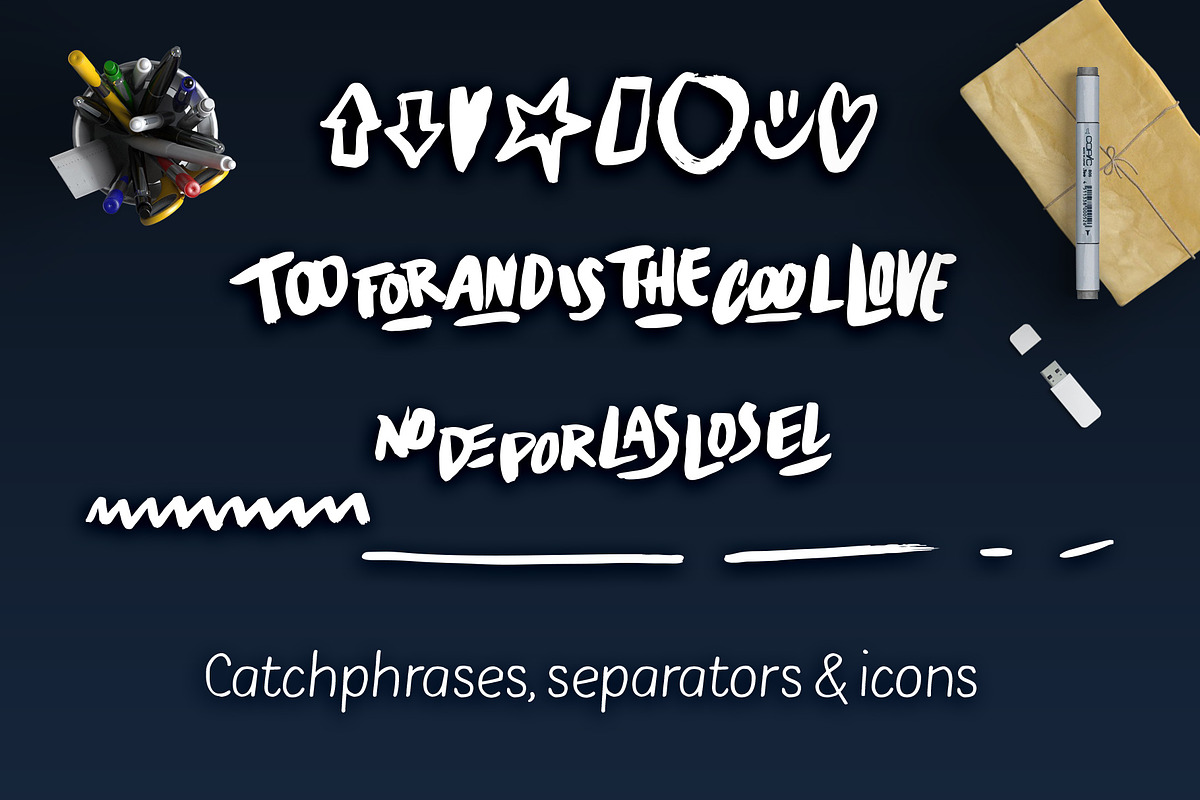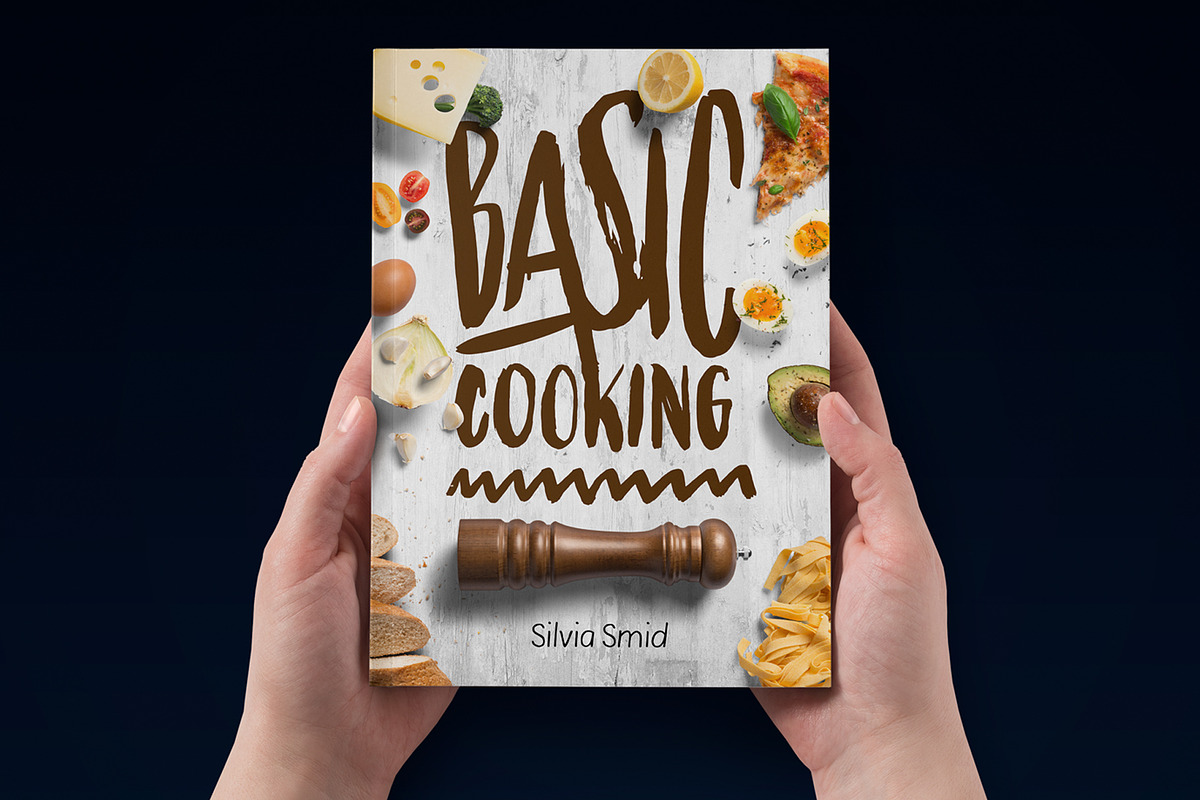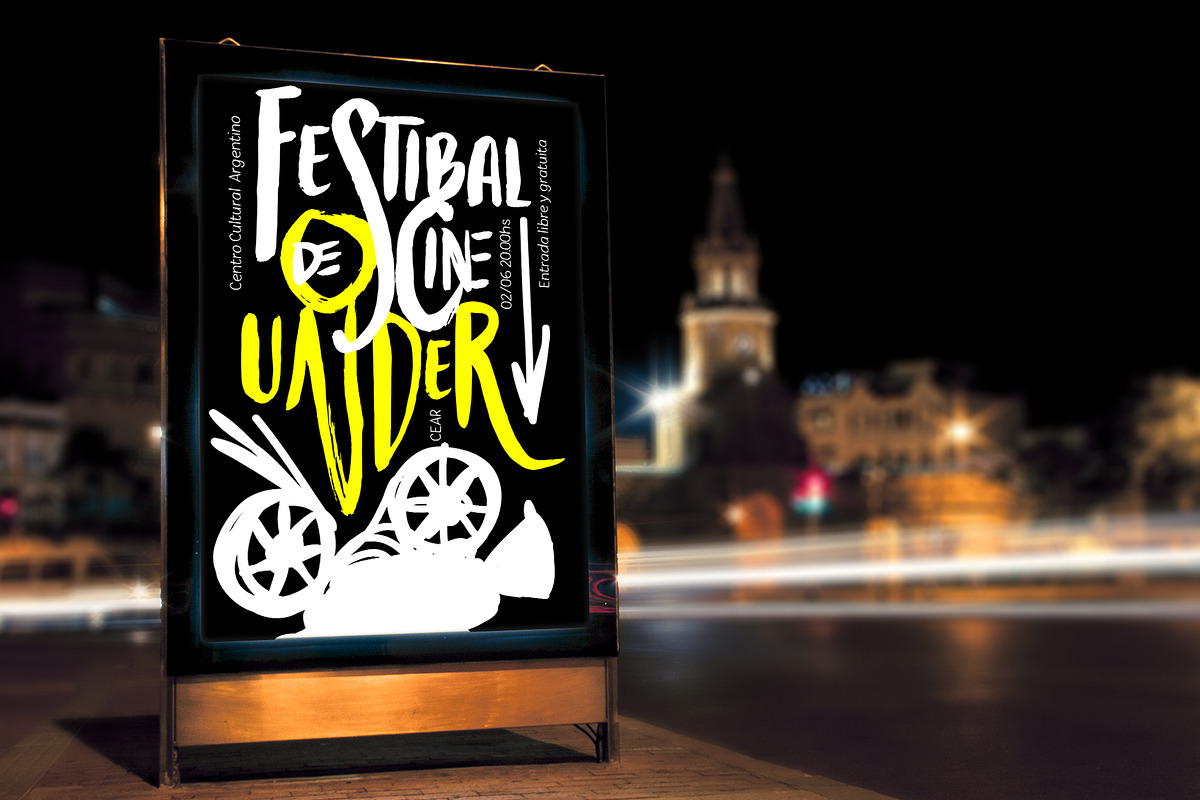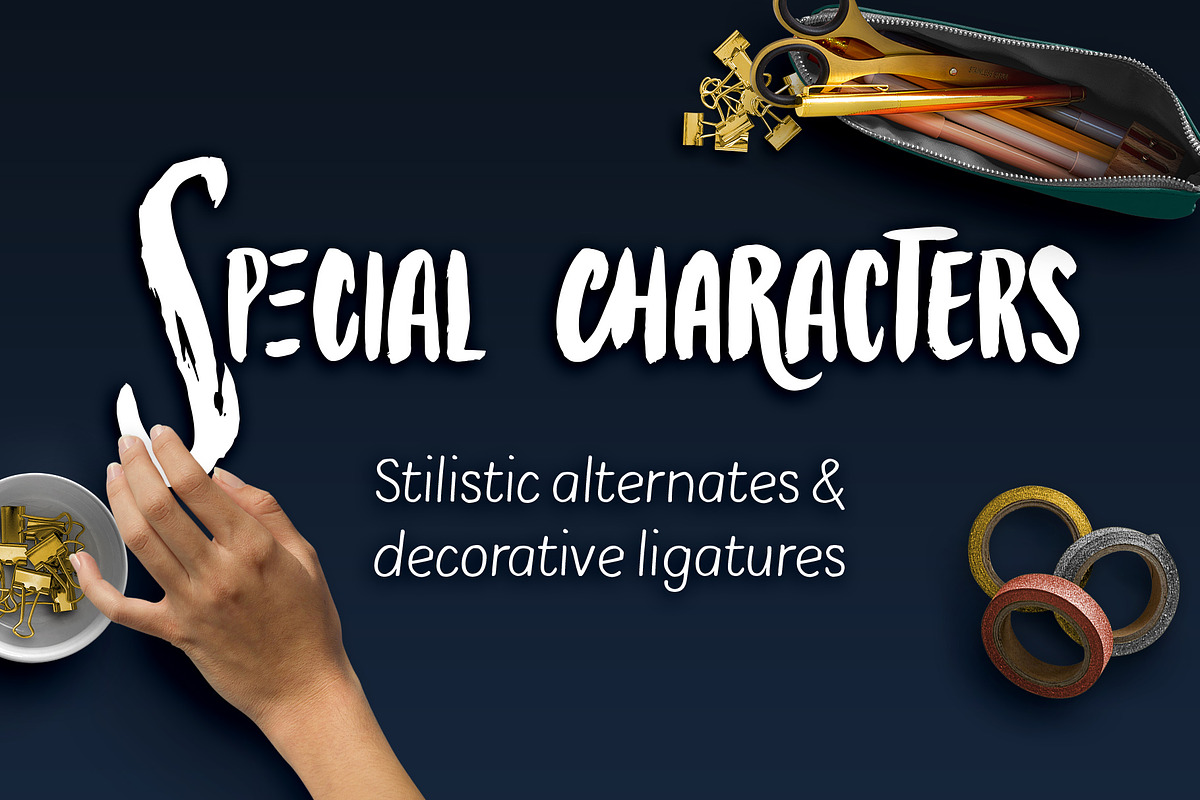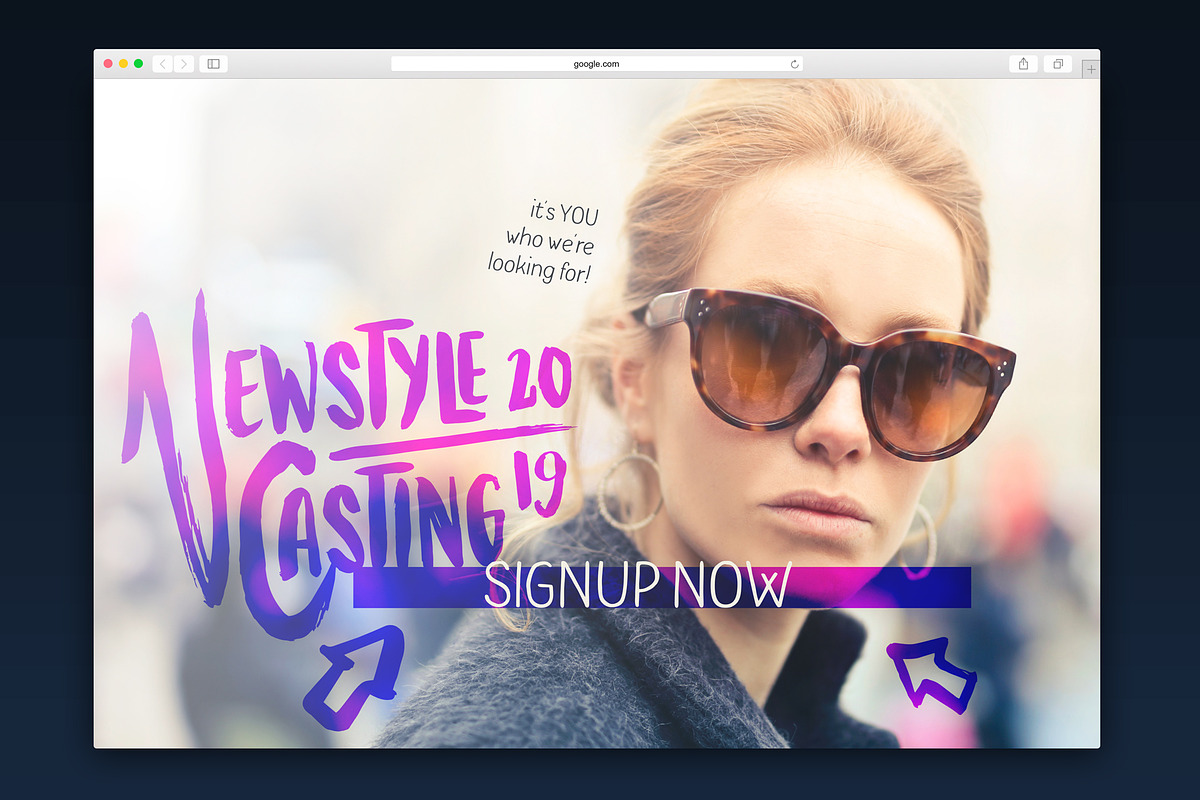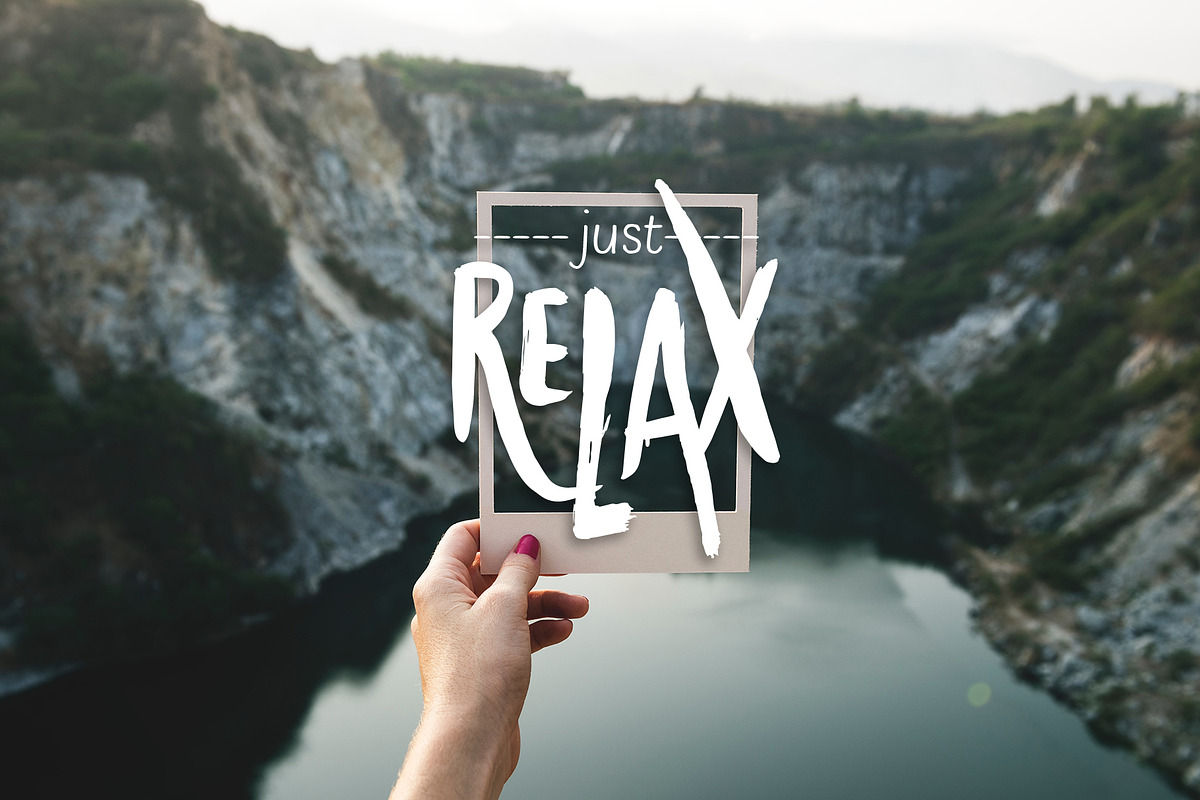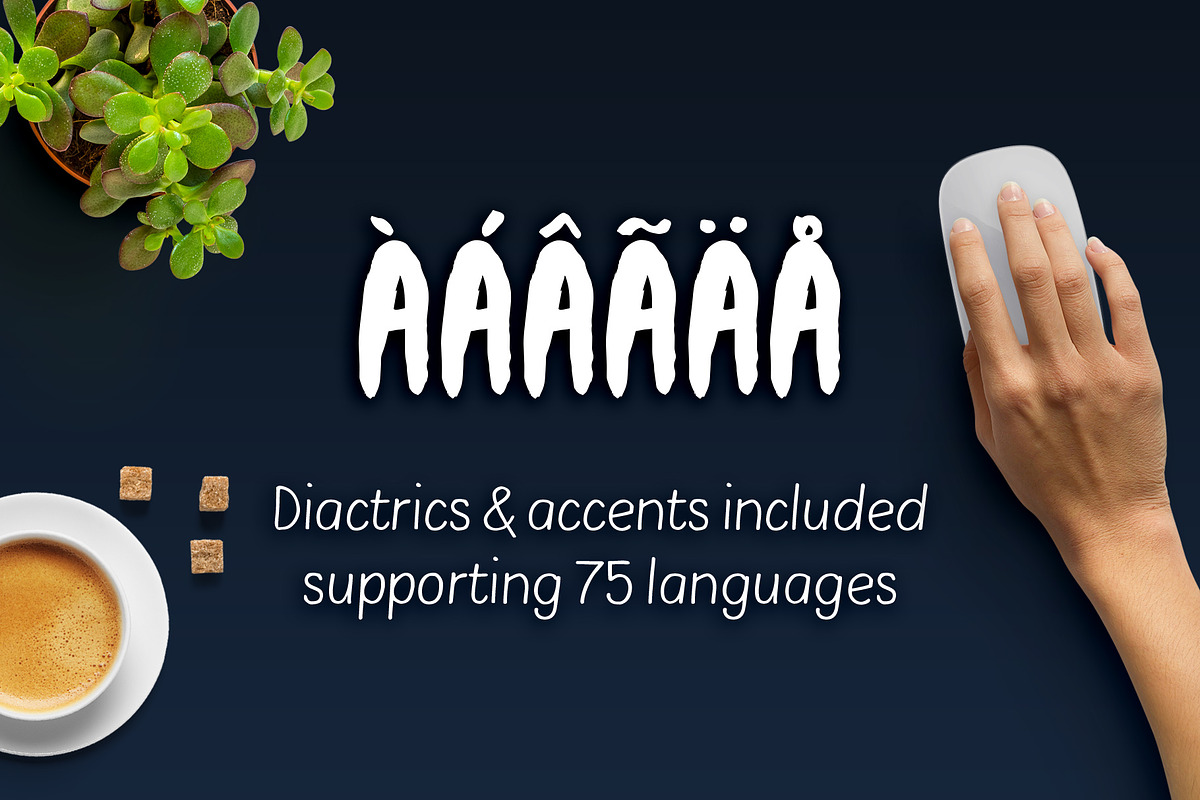
Bolonqui - handmade font duo
Bolonqui is a display handmade font duo, perfect for getting the huge visual impact you are looking for your projects.
Combining all the different options you may achieve unbelievable handmade-looking complex settings: you may choose between upper and lowercase, the different alternates on each, adding the special decorative characters, decorative ligatures and beautiful catchphrases, from English and Spanish languages. You want your work to have impact and use brush fonts that look like the real thing? This is the font duo for you!
Including diactrics and accents, this fonts support a total of 75 languages (Afrikaans, Albanian, German, Swiss German, Asu, Low German, Low Sorbian, Bemba, Bena, Bosnian, Catalan, Czech, Chiga, Cornish, Criollo (Cape Verde), Creole Mauritian, Croatian, Danish, Slovak, Slovenian, Spanish, Estonian, Basque, Faroese, Filipino, Finnish, French, Friulian, Scottish Gaelic, Galician, Gusii, Hungarian, Indonesian, English, Irish, Icelandic, Italian, Kalenjin, Kinyarwanda, Kirundi, Luo, Luxemburgish, Luyia, Machame, Makuwa-Meetto , Makonde, Malay, Malagasy, Manx, Northern Ndebele, Norwegian Bokmal, Norwegian Nynorsk, Nyankole, Oromo, Polish, Portuguese, Rhaeto-Romanic, Rhombus, Rwa, Samburu, Sango, Sangu, Seine, Shambala, Shona, Rope, Somali, High Sorbian , Swahili, Swedish, Taita, Teso, Turkmen, Vunjo, Zulu).
Make the best out of this duo combining both brush and script fonts, the perfect balance between chaos and calm.